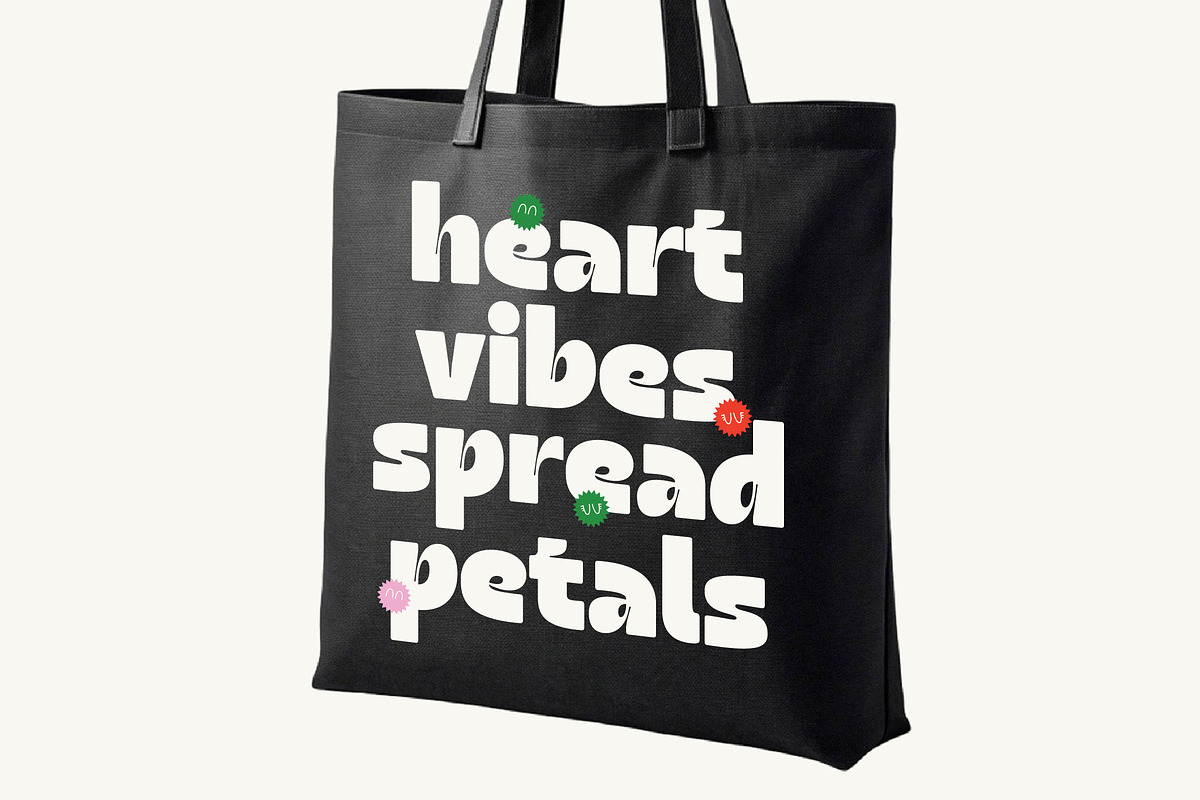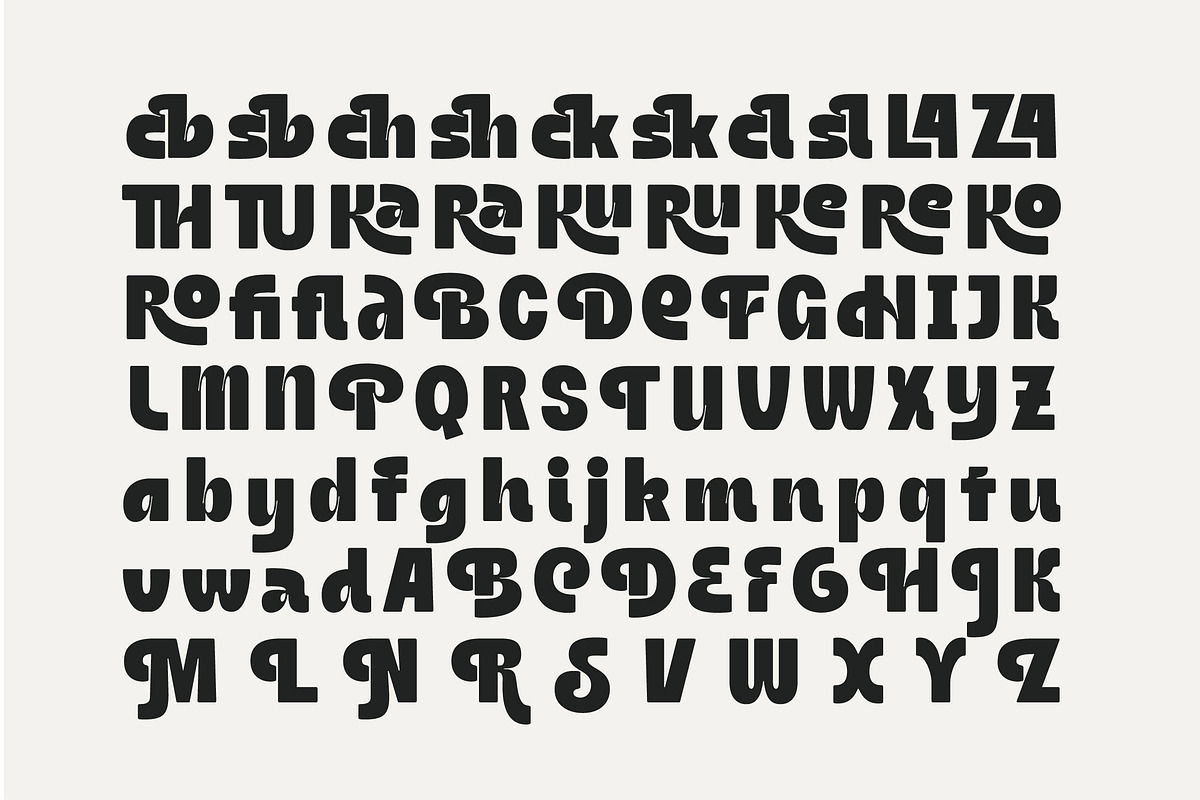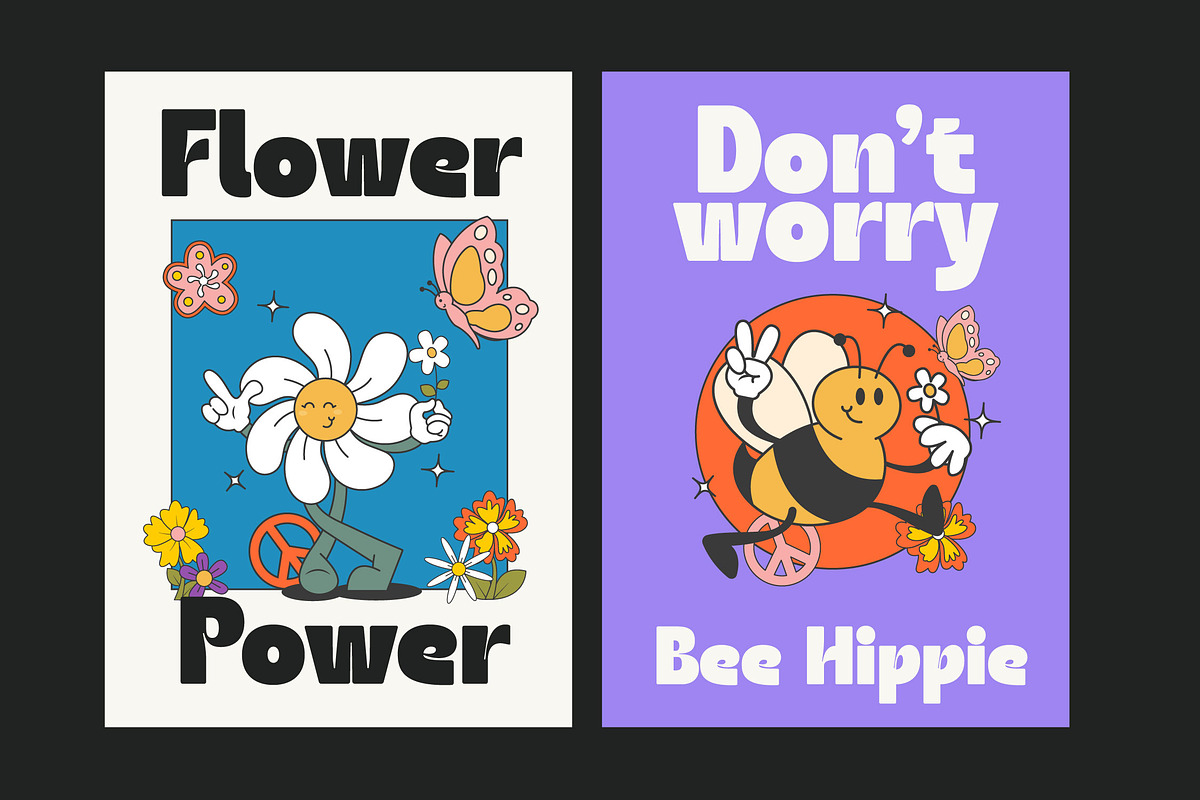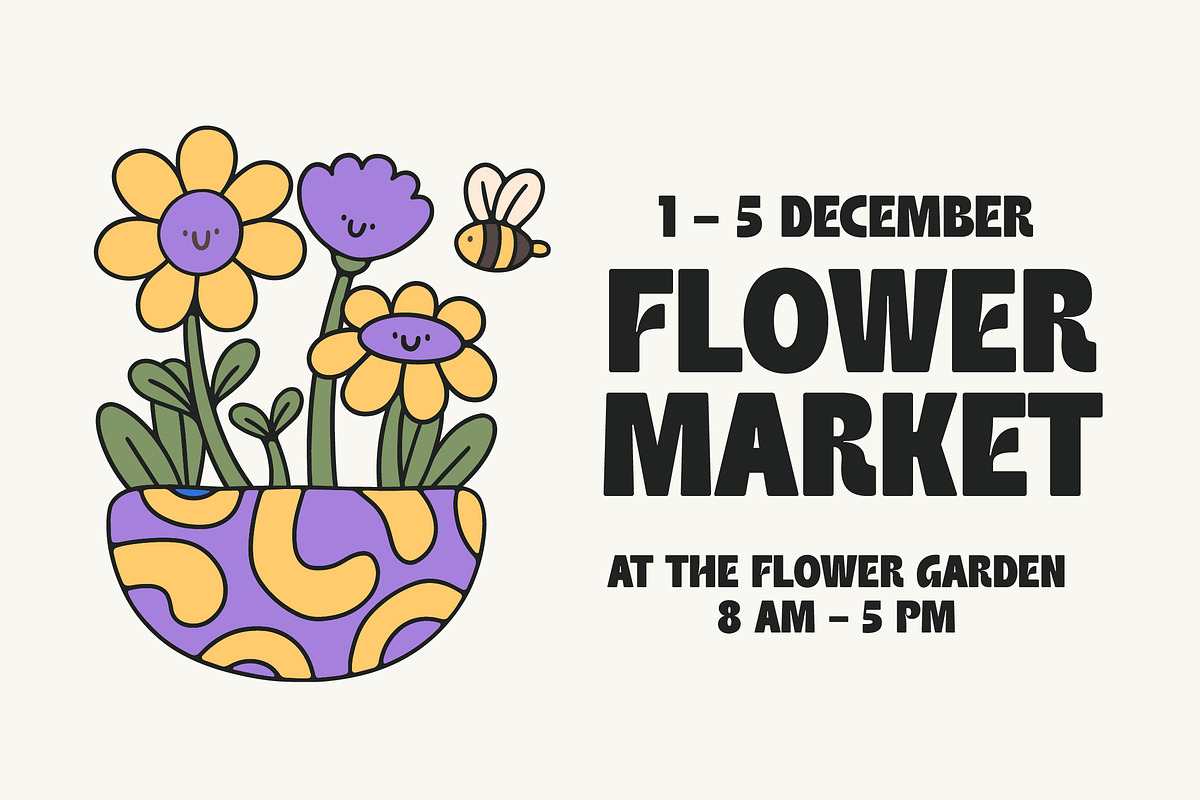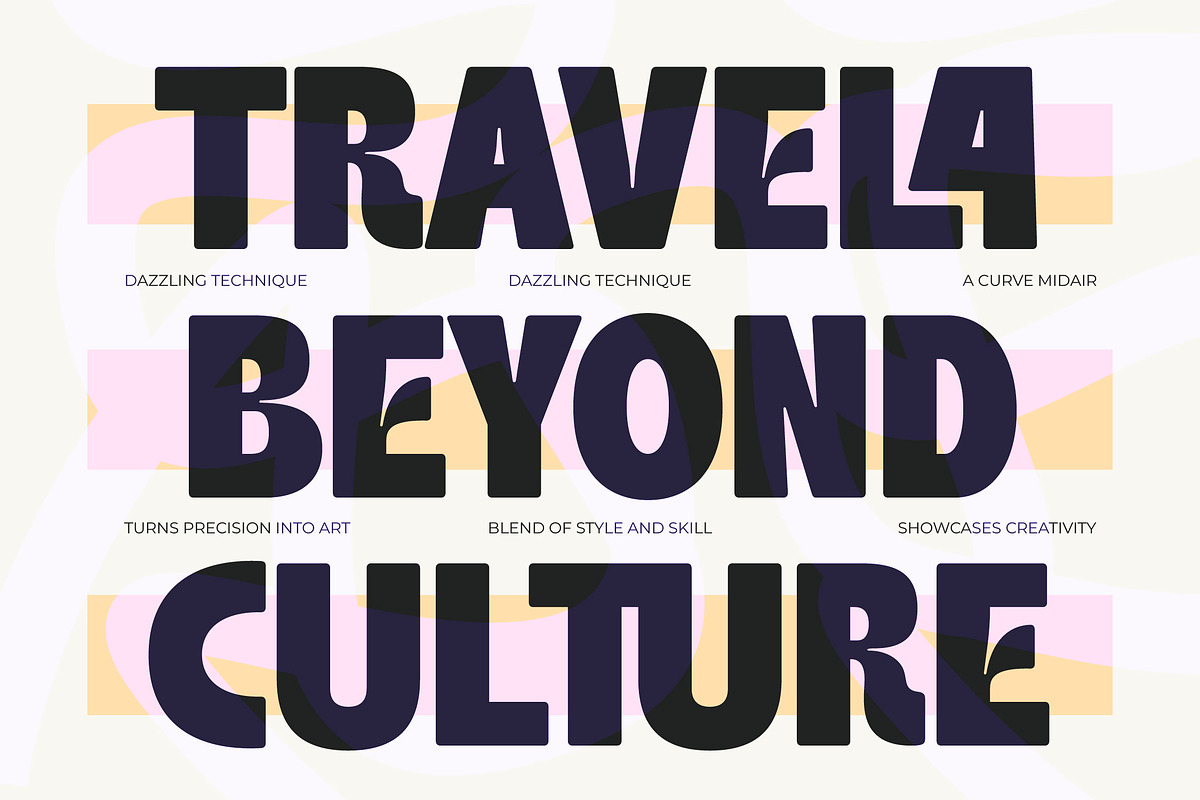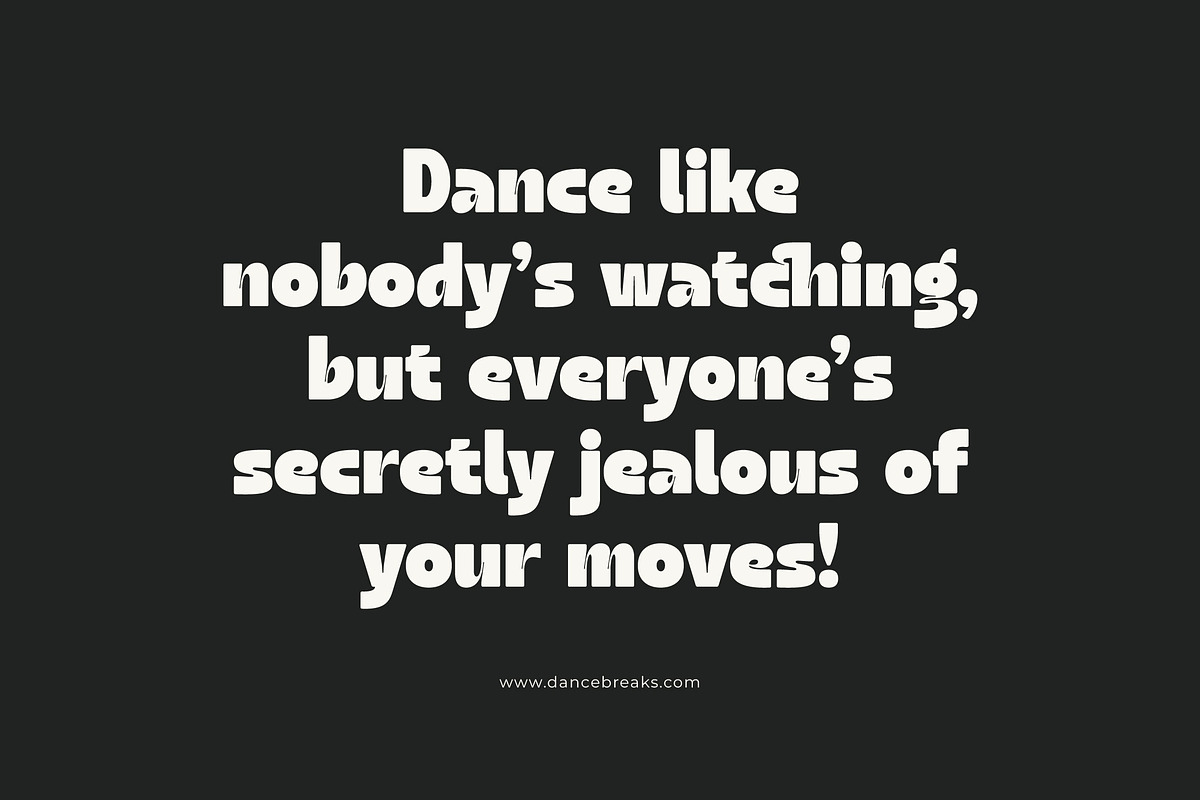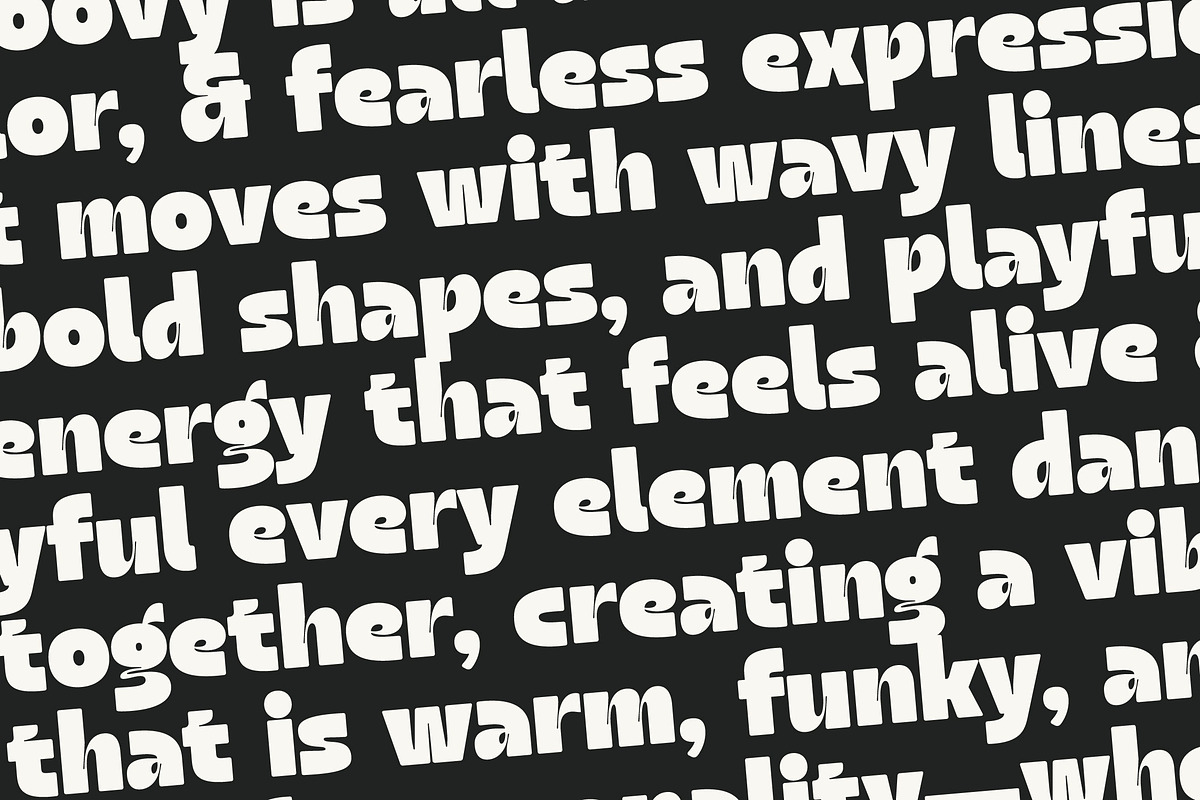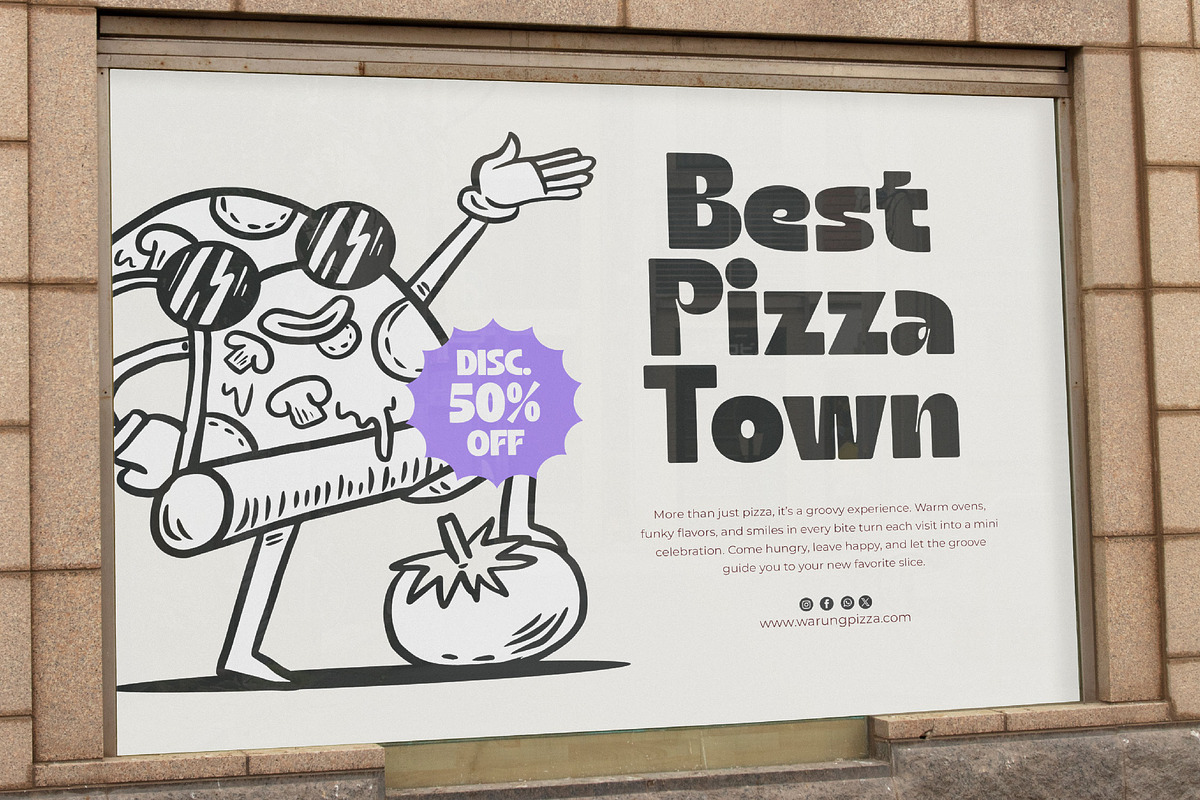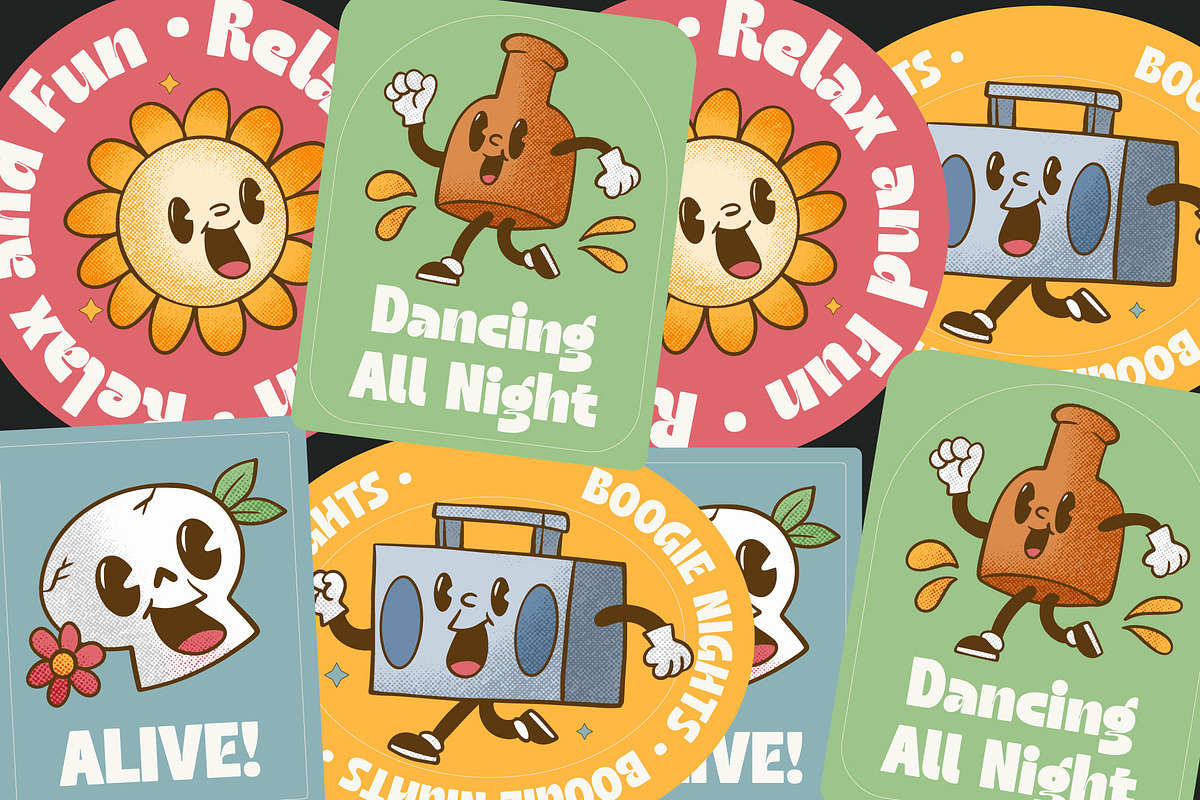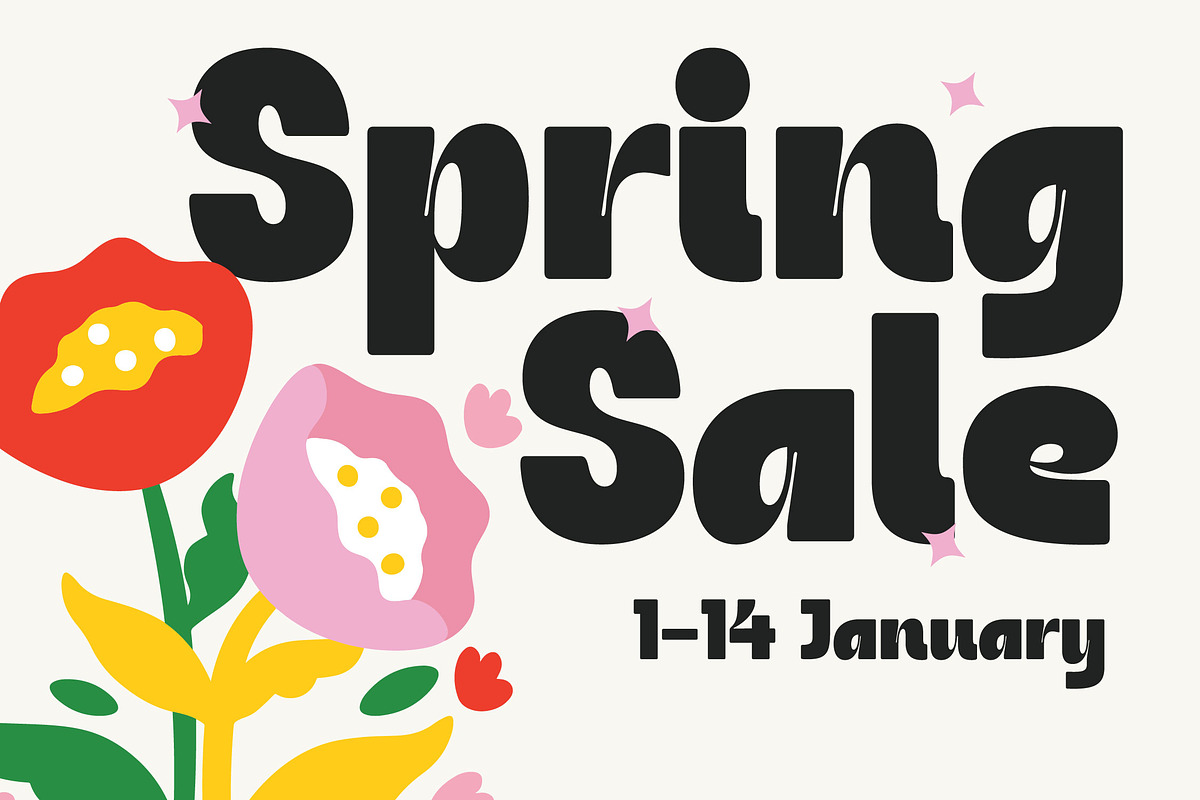
Magot Groovy Retro Display Font
Inject life into your creative projects with Magot Groovy, a bold and playful typeface designed to command attention. This expressive display font brings a unique blend of nostalgia and modern energy to every layout it touches.
Inspired by the fluid movements and vibrant aesthetics of 1970s pop culture, this font captures the essence of a bygone era while remaining perfectly fresh for today's designers. Its organic curves and heavy-weighted stems evoke a sense of carefree creativity and artistic freedom.
Magot Groovy isn't just a typeface; it's a statement piece that functions as a modern serif display with a distinct psychedelic twist. Designed for high branding impact, it balances quirky charm with professional execution, making it a versatile choice for any editorial font collection or luxury typography project that needs a touch of whimsy.
As the modern serif trend continues to embrace retro-revival aesthetics, this typeface stands at the forefront of character-driven typography. It perfectly meets the demand for editorial display fonts that offer both legibility and a strong, unforgettable visual identity.
This font is an ideal choice for high-impact logo design and comprehensive branding systems that want to stand out from the crowd. Whether you are working on packaging for artisanal goods, a high-end fashion magazine, a whimsical wedding invitation, or bold editorial layouts, Magot Groovy delivers a memorable performance.
Unlock endless creative possibilities with over 21 unique ligatures and 70 stylistic alternates that allow for deep customization. The font also includes full support for multilingual projects and international characters, ensuring your message reaches a global audience with its signature swashes and decorative flair.